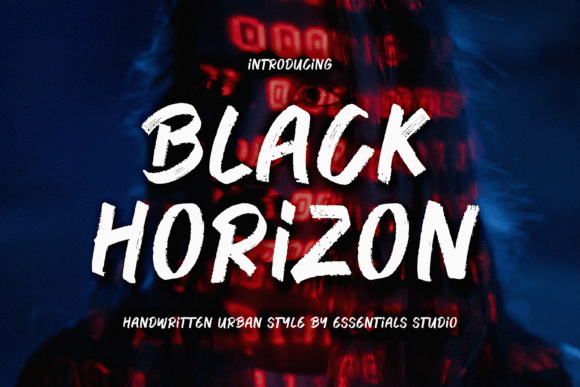
The Ultimate Urban Font: Unleashing the Power of Black Horizon Font
I’ll never forget the time I was working on a project for a trendy boutique hotel. My client wanted a modern, edgy vibe, but I was struggling to find the perfect font to capture that urban feel. That’s when I stumbled upon Black Horizon Font, and it completely transformed my design. In this article, I’ll share my experience with this amazing font, its features, and how to make the most of it in your creative projects.
- ✅ Modern and Fresh: Black Horizon Font has a contemporary feel that’s perfect for designs that need a bit of an edge.
- ✅ Urban-Style Brush Display: The font’s unique brush-like texture gives it a distinctive, hand-crafted look that’s hard to find in digital fonts.
- ✅ Versatile: Whether you’re working on a logo, a poster, or a social media graphic, Black Horizon Font adapts seamlessly to different design contexts.
- ⚠️ Legibility at Small Sizes: Like many display fonts, Black Horizon can get a bit tricky to read at smaller sizes. It’s best used for headlines or titles rather than body text.
- ⚠️ Overuse: Because it’s so stylish, it’s easy to overuse Black Horizon Font in a single design. Make sure to balance it with simpler fonts to avoid visual overload.
The Story Behind Black Horizon Font
Black Horizon Font was designed with the modern urban landscape in mind. Its creator wanted to capture the edgy, contemporary feel of city life in a digital font. Inspired by street art and modern typography, Black Horizon Font brings a fresh perspective to the world of display fonts.
| Font Name | Black Horizon Font |
| Author | Essentials Studio |
Q: Is Black Horizon Font suitable for body text?
A: While it’s technically possible to use Black Horizon Font for body text, it’s not recommended. The font’s unique texture and style are best suited for headlines and titles.
Q: Does Black Horizon Font support OpenType features?
A: Yes, Black Horizon Font supports OpenType features like glyphs and stylistic alternates. Experiment with these features to add more personality to your designs.